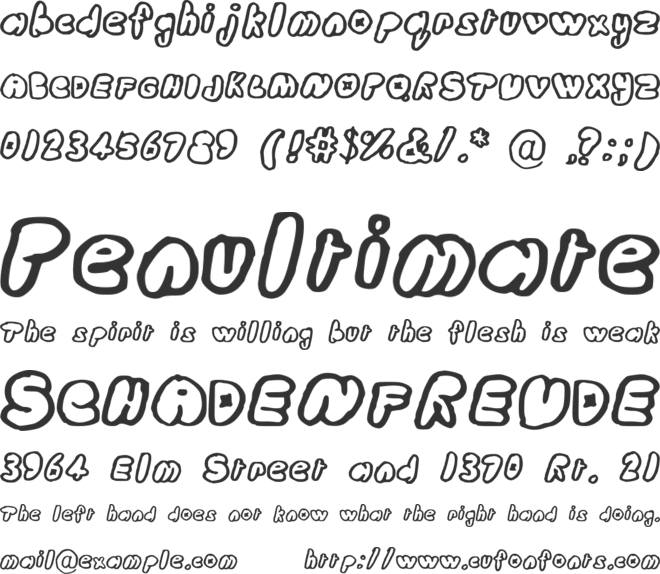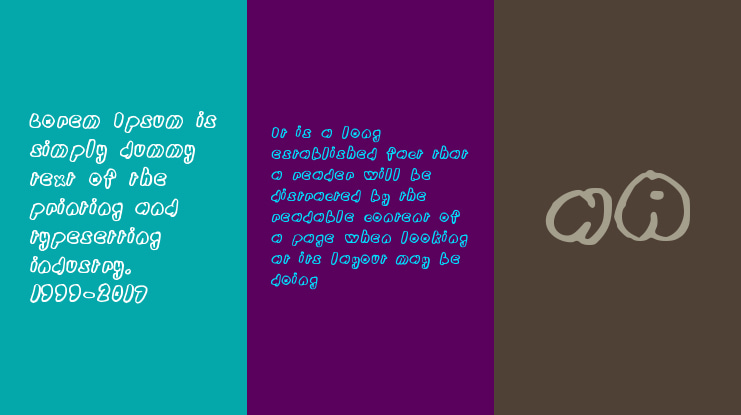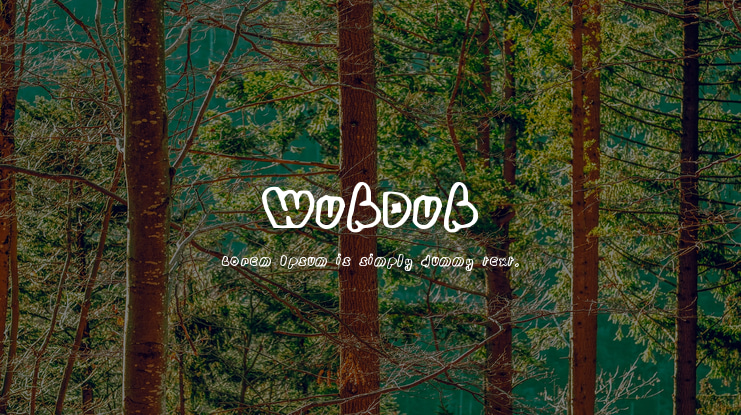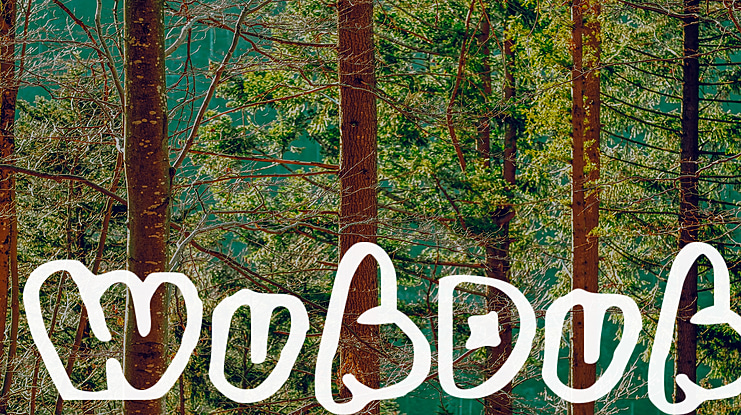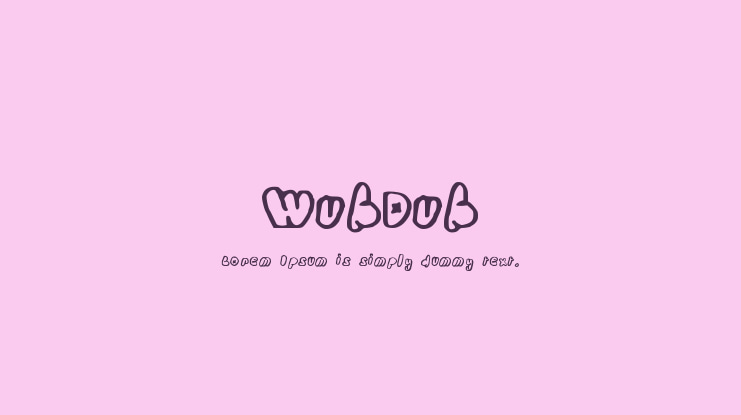
WubDub Font
This is a very cool cartoony font.I worked on it for months to make it look like cartoony but handwritten.This is a blue-tag font so it is 3.99$ for commercial use.Contact me for anything you want to ask.